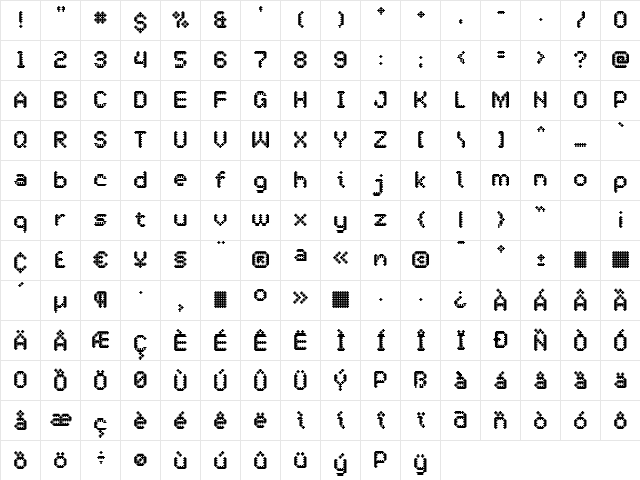
OneCross Bold
| Foundry | YouWorkForThem |
| Designer | Michael Cina |
Design Context for OneCross Typeface
OneCross takes a measured approach to typography — its balanced proportions and neutral character make it a reliable workhorse for both digital and print work. The heavy weight commands attention and anchors typographic hierarchies.